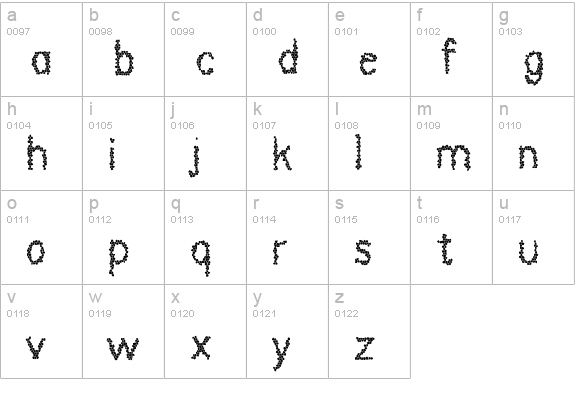
Introducing Dinosaur Skin font, a unique and captivating typeface that embodies the prehistoric allure of ancient creatures. This font features rugged textures and bold letterforms that mimic the rough and scaly exterior of dinosaurs, making it perfect for projects seeking a touch of primal charm. The Dinosaur Skin font is not only visually striking, but also versatile, suitable for a wide range of design applications. Best of all, this striking font is available for free download at FontsMarket.com. Whether you're working on a branding project, poster design, or any other creative endeavor, Dinosaur Skin font is sure to make a memorable impact. Embrace the spirit of the past with this one-of-a-kind typeface and unleash your creativity today.